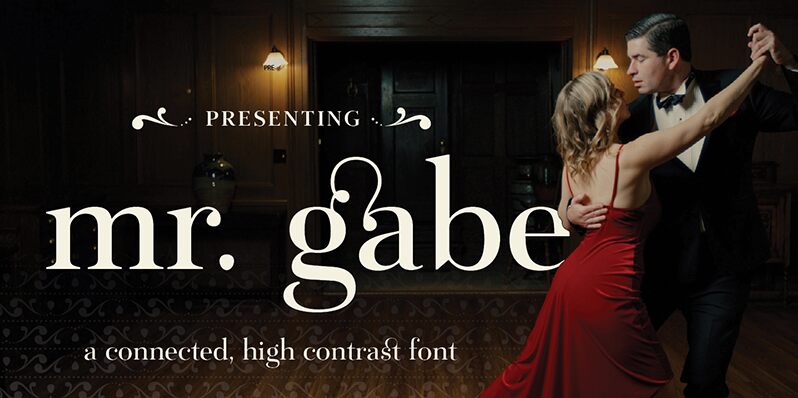
Mr Gabe Regular
Mr Gabe font designed by Andrea Leksen is a sophisticated, classic serif that embodies elegance. With its refined and authoritative aesthetic, this free serif font offers a timeless touch to any visual composition. Mr Gabe’s versatility allows it to seamlessly enhance traditional projects as it has all the features expected from stylish and minimalist fonts.
Use Mr Gabe for an authoritative book or corporate report and label your brand identity with its exquisite design. Use it in magazine covers, publication titles, airline logo redesigns, certificates, invitations for galas or weddings, editorial projects, stationery products like business cards or letterheads.